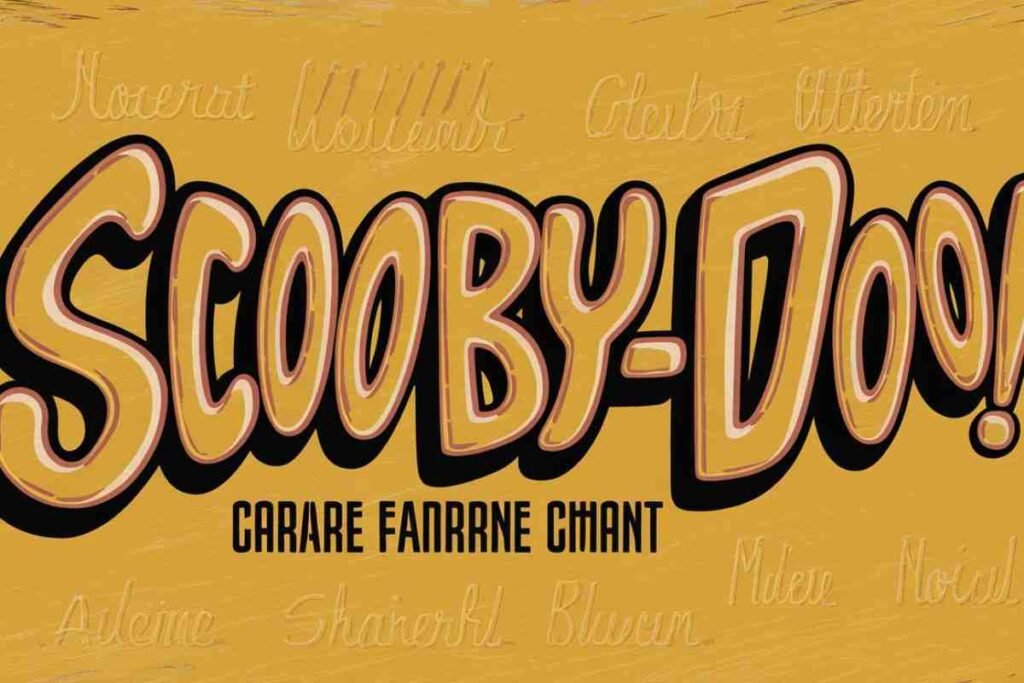
The Scooby Doo font has become iconic over the years, inspiring fun designs across various projects. Whether you’re working on a Scooby Doo fan site, designing t-shirts, or creating posters, this unique font style can give your design that playful, cartoonish vibe everyone loves.
What is the Scooby Doo Font Style?
The Scooby Doo font style is inspired by the lettering used in the popular Scooby Doo cartoon series. The font is playful, bold, and fun, making it perfect for projects targeting younger audiences or fans of retro cartoons.
It features irregular letter shapes, exaggerated curves, and a casual, comic-inspired design. This makes it stand out as a Scooby Doo typography that adds energy and fun to any visual.
If you’re looking for fonts that resemble this fun style, there are several fonts similar to Scooby Doo available for download. These fonts capture the essence of Scooby’s quirky lettering but offer different variations suited to a wide range of designs.
If you’re interested in experimenting with the font, some sites also provide a Scooby Doo font generator where you can type your text and see how it looks in the Scooby Doo style before downloading.
How to Use the Scooby Doo Font for T-Shirts and Merchandise?
Designing custom t-shirts with the Scooby Doo font for t-shirts is a fantastic way to create unique, eye-catching merchandise. The playful, bold design of the font works well for all ages, making it suitable for themed events or even personal collections.
Many fans of the show love to wear shirts that showcase their favorite characters, and using this font brings a touch of nostalgia. When designing t-shirts, consider pairing the font with retro illustrations or Scooby Doo characters.
This can elevate your design and make it more appealing to those looking for something fun and classic.
Scooby Doo Font for Posters and Event Invitations
The Scooby Doo font for posters is another great application of this unique typeface. Whether you’re designing promotional materials for a Scooby Doo-themed party or a cartoon event, the bold lettering will grab attention and set the tone for the event.
Pair the font with bright colors and cartoonish imagery to further enhance the playful vibe. The font’s fun, casual design is perfect for bringing a lighthearted feel to any poster, event invite, or advertisement.
Exploring the Scooby Doo Logo Font
The original Scooby Doo logo font is an iconic part of the show’s branding. It’s instantly recognizable, with its exaggerated, bubble-like letters that reflect the carefree and adventurous spirit of the show.
If you’re a designer creating logos for a project inspired by Scooby Doo, using the Scooby Doo lettering font is a great way to capture the nostalgic charm of the series.
While you can find fonts similar to the Scooby Doo logo font, you may also choose to create custom typography based on the same playful style. This gives your design a unique, fresh look while maintaining the spirit of Scooby Doo.
Fonts Similar to Scooby Doo for Creative Projects
If you want a font with a similar style but with a unique twist, there are plenty of alternatives available. Many Scooby Doo inspired fonts feature similar curves, playful letter shapes, and bold, attention-grabbing designs. These fonts work great for projects like:
- Retro cartoon-themed advertisements
- Comic book titles or graphics
- Branding and logo design for fun, youthful brands
Using retro cartoon fonts or other funny fonts for designs can add a similar feel without being an exact replica of the Scooby Doo font. These alternatives offer variety while still capturing the playful and vintage cartoon aesthetic.
Using the Scooby Doo Font for Logos and Branding
The Scooby font for logo design can help establish a fun and recognizable brand identity. Whether you’re creating a logo for a children’s brand, a retro-inspired event, or even a fan page, incorporating this font can make your logo more memorable.
Its bubbly and fun design immediately communicates playfulness, which is perfect for logos aimed at younger audiences or fans of classic cartoons.
For branding, consider using the Scooby Doo font for designs that need to stand out or carry a sense of nostalgia. Whether it’s for online or print materials, the font’s casual and quirky vibe can give your brand a unique personality.
With so many ways to incorporate the font into your designs—whether through free downloads, font generators, or alternatives—you’re sure to find the perfect fit for your project.
By using these tips and exploring Scooby Doo typography options, you can create engaging designs that bring this beloved cartoon to life in new and exciting ways.